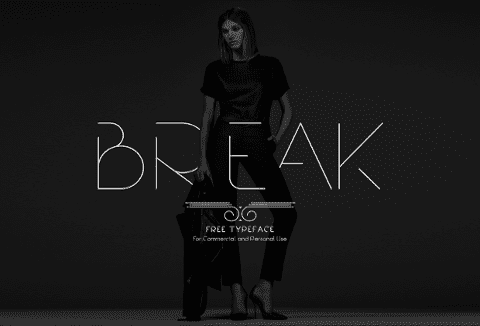
Break – A Modern Free Font
Modern free font – Give your old fonts a break!
Break – Modern Free Font
Break – A modern free font will make your designs look modern and in tandem with the latest design trends.
Choosing the right font for a design is one of the primary factors that affect the overall design.
If you continue using the same fonts over and over, then the freshness in the designs is lost.
But with Break’s fresh style, you can create gorgeous text and can highlight your tagline the modern way.
Break font is available in 5 weights:
bold
semibold
regular
light
extra light
It contains uppercase, lowercase, numeric, and symbols and can be used in a wide range of projects for fashion, luxury, advertising, and other related industries.
3 Different Styles
Preview Of Break – Modern Free Font
Includes 3 different styles as regular, distressed & shade.